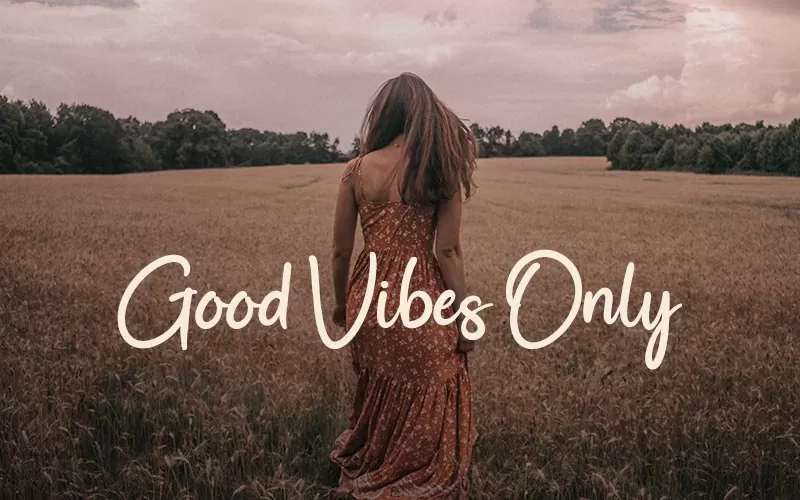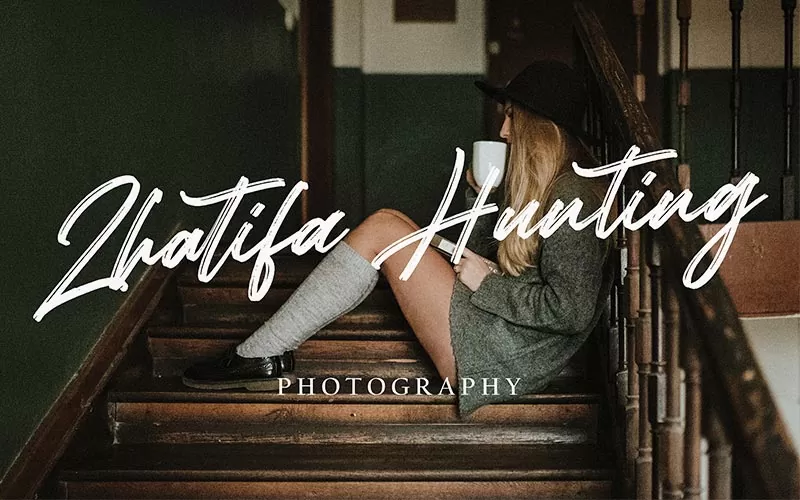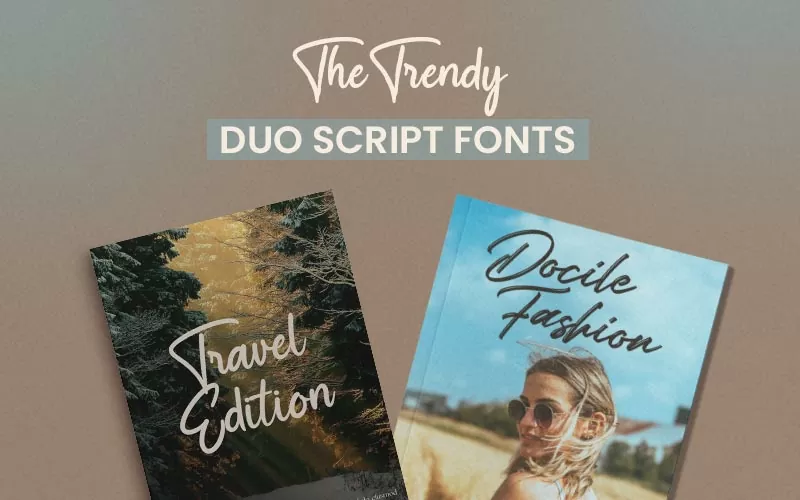
Infuse Elegance In Your Designs With Trendy Script Fonts!
Are you looking for a script font that’s both stylish and modern?
Look no further than The Trendy Duo Script Fonts!Â
With two unique and eye-catching script styles, this font set is perfect for adding a touch of elegance to any project.
Whether designing a wedding invitation, creating a logo, or needing a standout font for your social media graphics, The Trendy Duo has got you covered.Â
The Duo Trendy Script Fonts Include:
Bhatera Script Font
Gattiran Script Font
A Sneak Peek Into The Best Script Fonts:
Duo Trendy Script Fonts